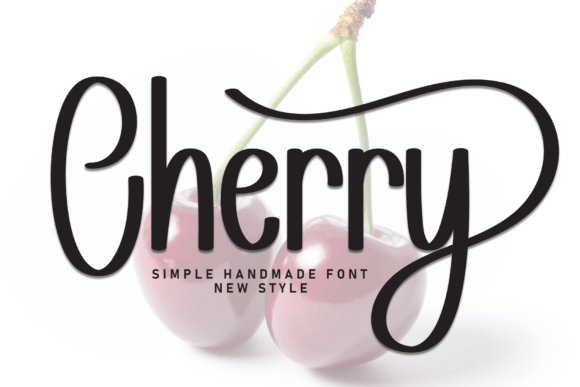
The Perfect Touch: Unveiling the Allure of Cherry Font
As a designer, there’s nothing quite like that moment when a project starts to come together – the perfect combination of color, texture, and typography. It’s the moment when you know you’ve captured the essence of your client’s vision, and it’s all thanks to the right font. For me, that font is often the Cherry Font – a stylish handwritten script that adds a touch of elegance and playfulness to any design.
Cherry Font is a versatile tool that can elevate invitations, branding, and social media posts alike. Its flowing curves and natural rhythm create a sense of warmth and sophistication, making it a valuable asset for designers looking to add a personal touch to their projects. Whether you’re working on a wedding invitation or a social media campaign, the Cherry Font is sure to bring creativity and charm to the table.
Cherry Font Key Features
- Font Family: Cherry is a script font, designed to mimic handwritten text. It’s ideal for creative projects, such as invitations, greeting cards, and signage.
- Unique Characteristic: Cherry’s handwritten feel is achieved through a combination of smooth, flowing lines and subtle imperfections, giving it a personal and touchable quality.
Designer Review: Cherry Font
Overall, the Cherry Font is a sweet and charming font that can bring a touch of warmth to your designs. Here are some of its key features:
- ✨ Beautifully crafted ligatures and connecting strokes create a natural, handwritten feel.
- ✨ The font’s weight and contrast range from thin to bold, making it suitable for a variety of design applications.
- ✨ Cherry Font is highly legible, making it perfect for body text, headings, and even signage.
However, like any font, Cherry Font has its limitations:
- ⚠️ Limited character set and language support, making it less suitable for multilingual projects.
- ⚠️ The font may not be as suitable for extremely formal or professional designs, as its handwritten feel may not convey the desired level of sophistication.
Overall, I would say that Cherry Font is a great choice for designers looking to add a touch of warmth and personality to their projects. With its beautiful ligatures, legibility, and range of weights, it’s a versatile font that can be used in a variety of contexts. However, it may not be the best choice for projects that require a more formal or professional tone.